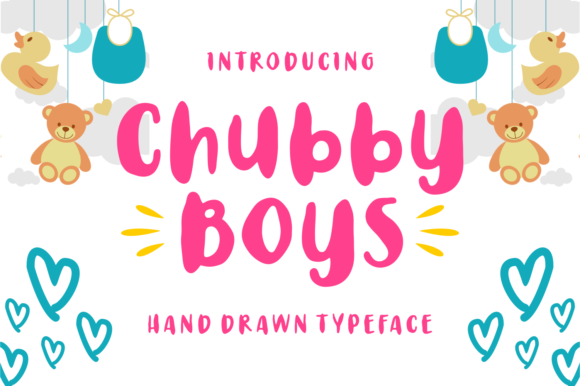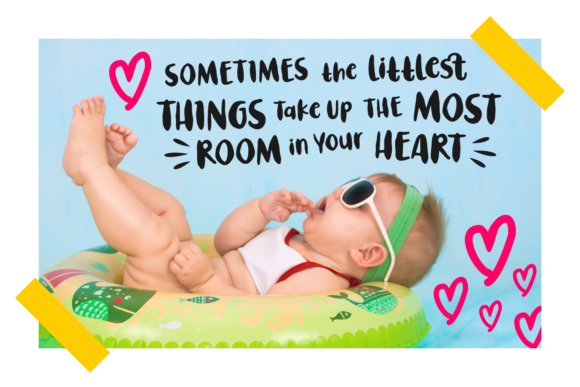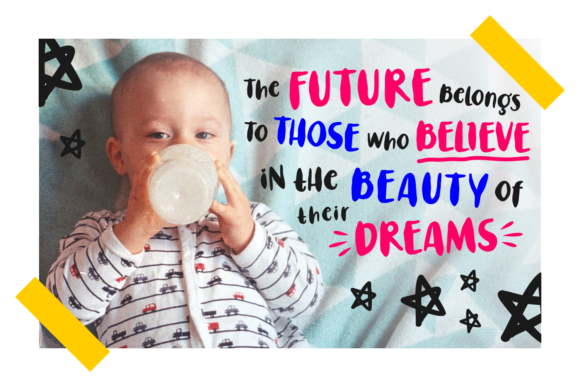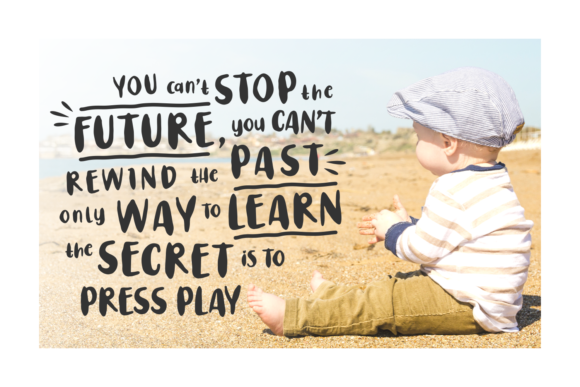
Chubby Boys Font
About Chubby Boys Font
The Chubby Boys is a fun hand drawn typeface. It has bold letters with a playful touch, which makes it perfect for children designs, quotes, and large display designs.